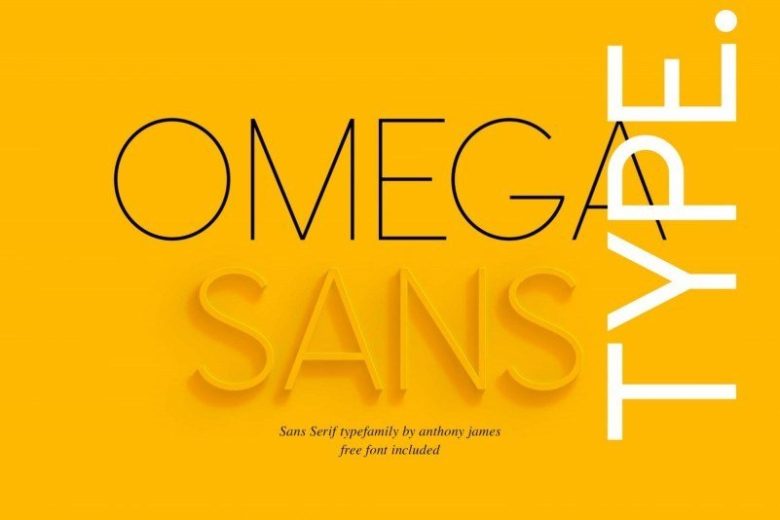
Omega Sans Free Font
Omega Font – is a modern sans serif with 4 weights. Just one look and you will notice the unique flair of this typeface which will make it perfect for logotypes, headlines, etc! It is designed and shared by Anthony James.
It’s a Classic Gothic Sans Serif Font Family, versatile as a geometric display typeface or when applied as Sub Headings or Text. Multilingual support for 120 latin-based languages is also included.